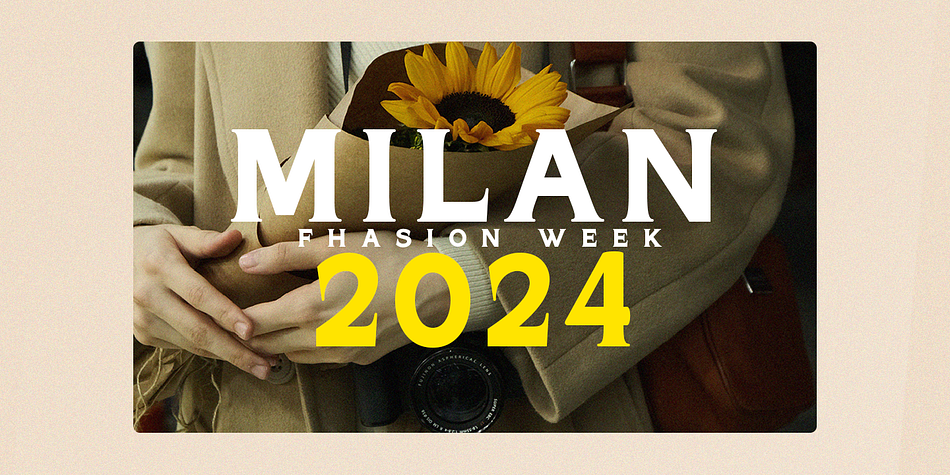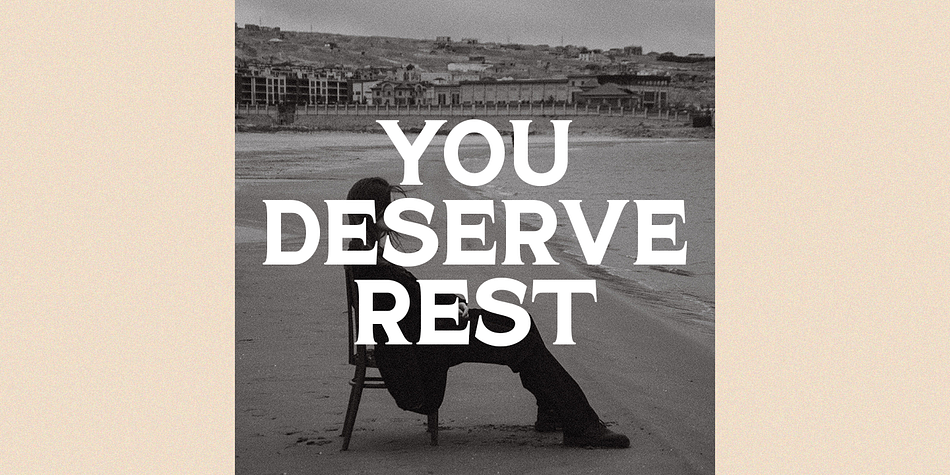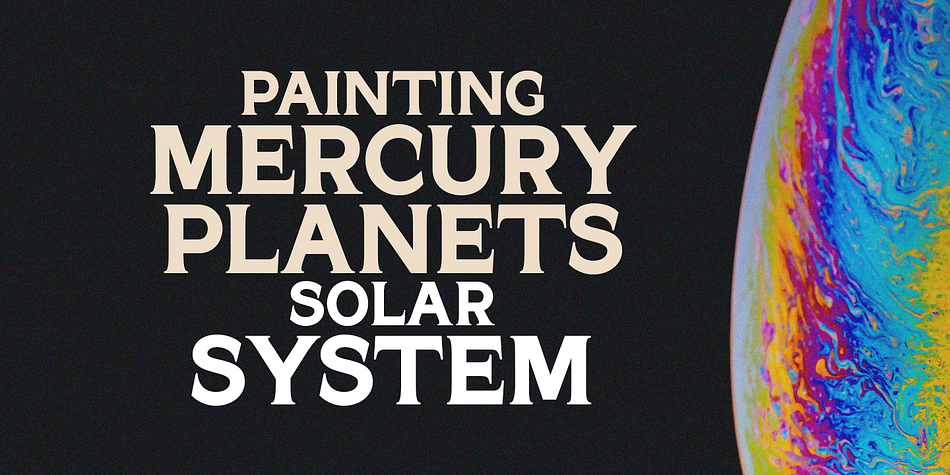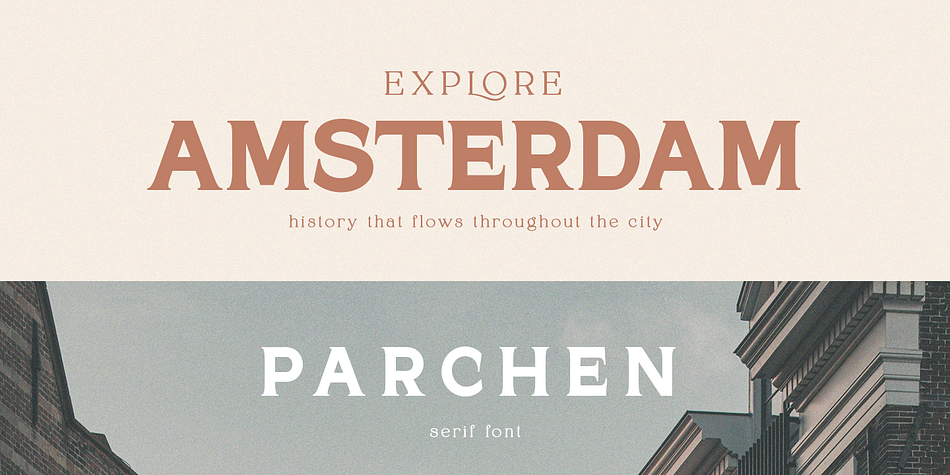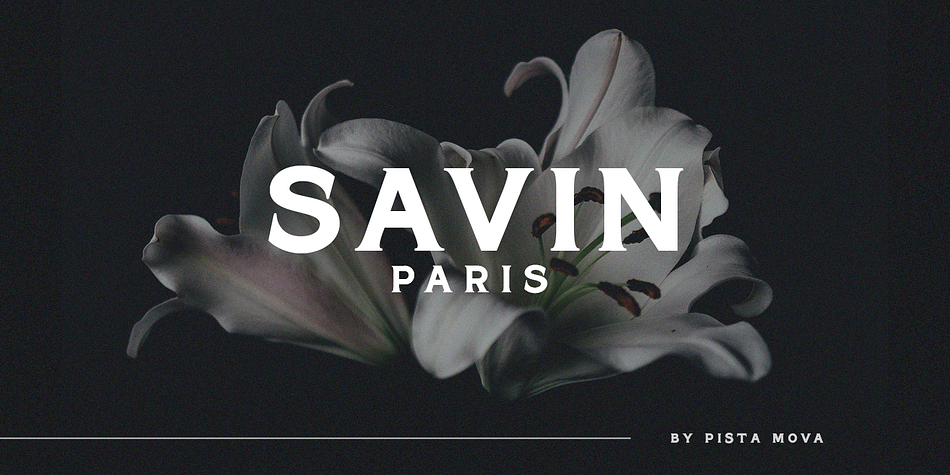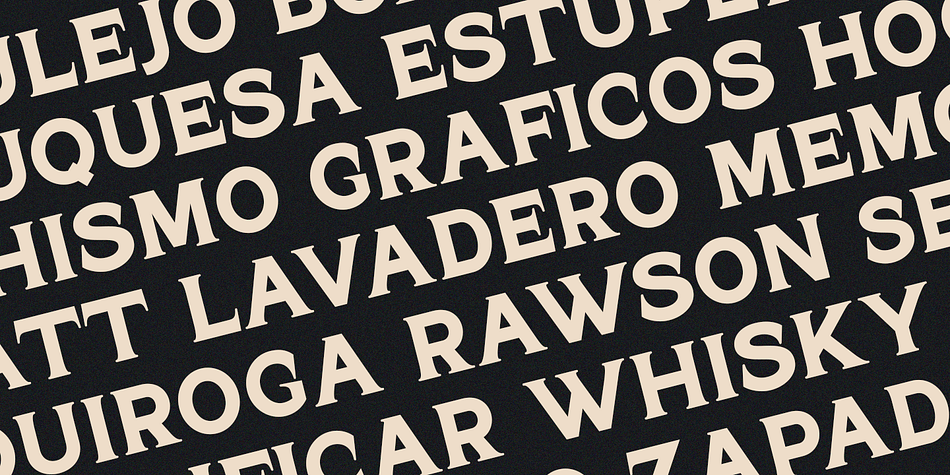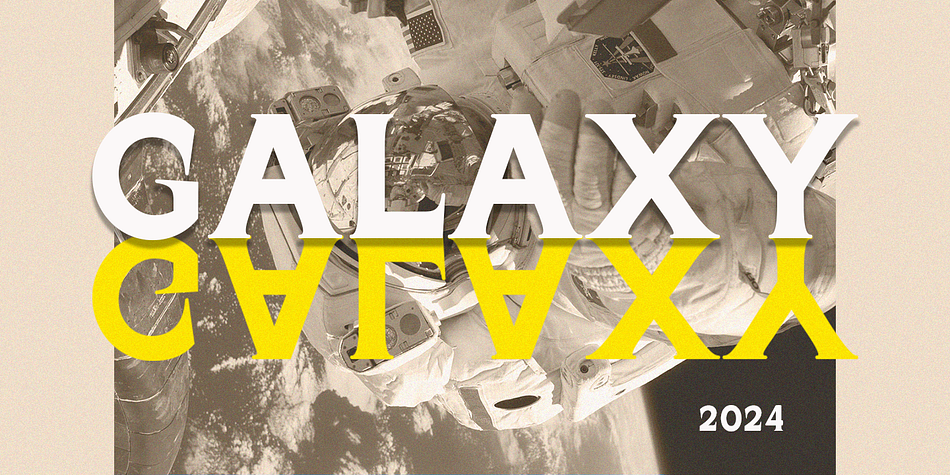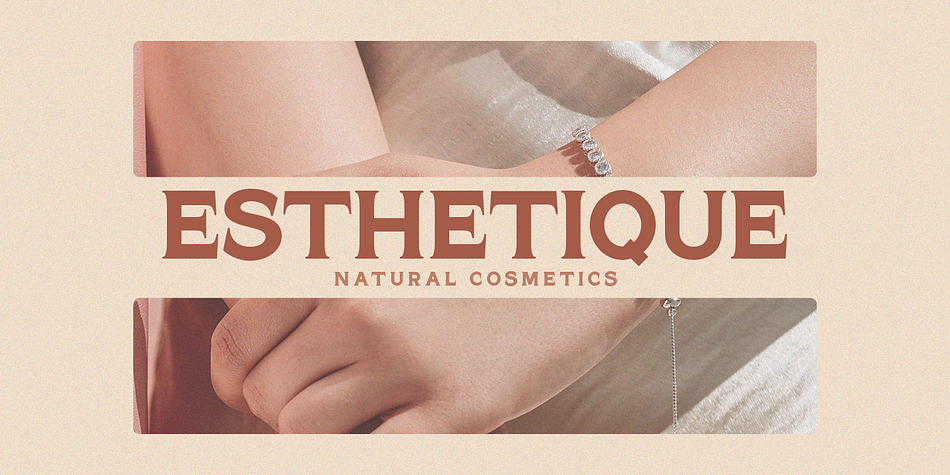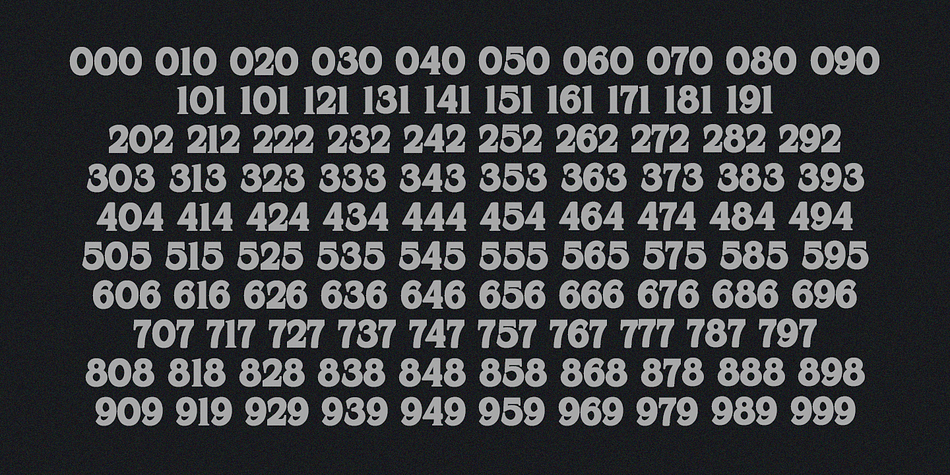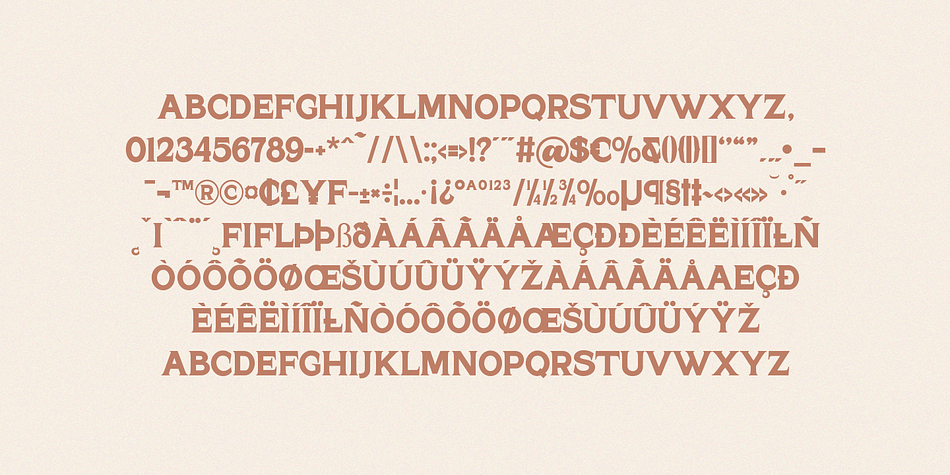
PARCHEN
PARCHEN is a display serif font family. This typeface has four styles and was published by Pista Mova.
PARCHEN is a Classy and Unique font for brand and logo designs.
Based on our experience as graphic designers working for many companies, we are often asked to design logos with a unique style but with an elegant shape. So, we tried to brainstorm and create this font to make the idea come true. This is perfect for BRANDS and LOGO DESIGNS. You will get a classy, elegant and of course unique logo with this font.
PARCHEN also includes complete sets:
uppercase multilingual symbols number punctuation